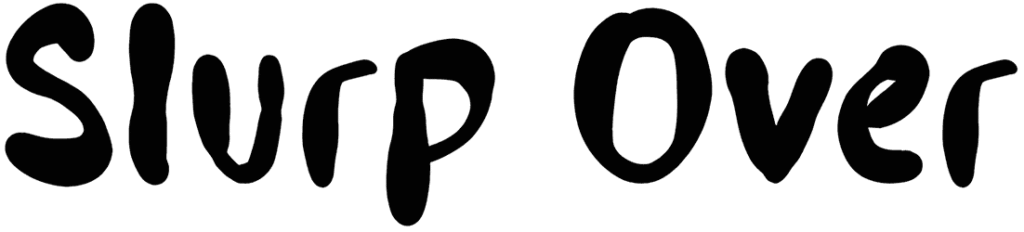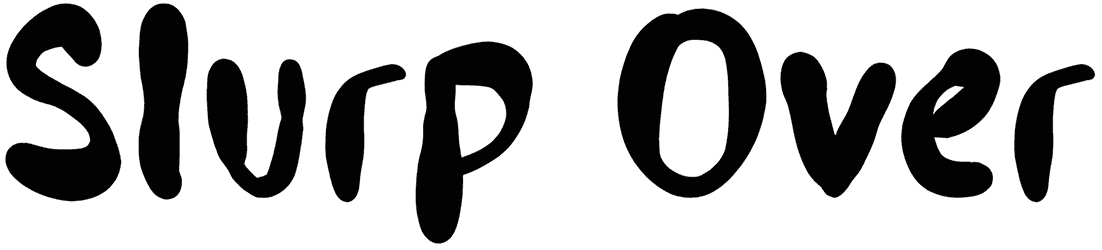
Slurp Over Font
A realistic letterform like this script font can give a modern and artistic visual to your words and make your layout unique. The Slurp Over font has a soft and eye-catching face that is going to impress your viewers. Try this indie font for your new design, like a gallery sign, and see how amazing it will be.